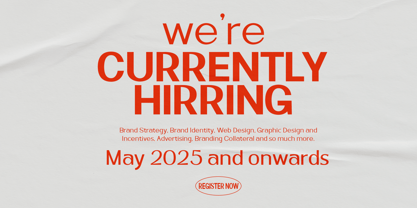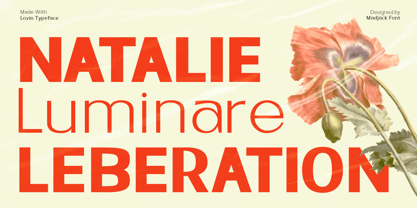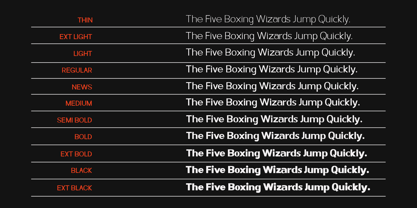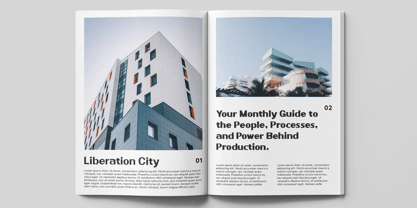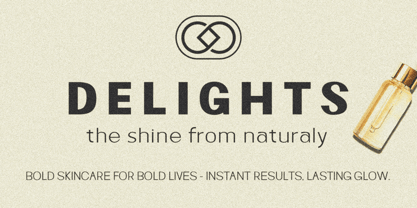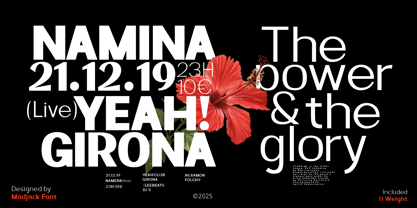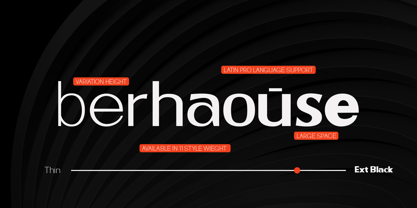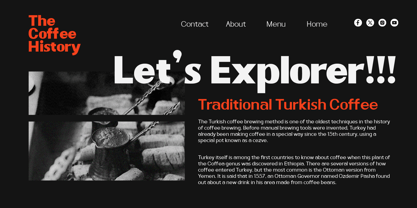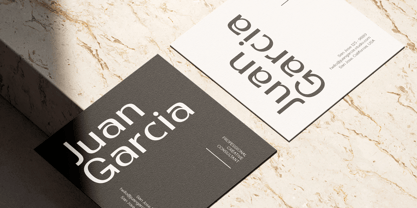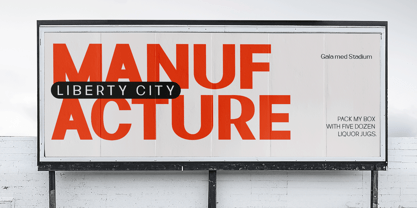
Lovin
The Lovin Font Family was designed by Zaki Muhammad and published by madjack.font. Lovin contains 11 styles and family package options. More about this family
Lovin is a modern sans serif with a geometric touch. Available in 11 font styles, Thin & Xtra Black Weights, so you can use it however you want. Designed with advanced opentype features in mind. Perfect for graphic design and any display use. Can be easily used for web design, signage, corporate, and editorial.
Lovin Sans Serif is suitable for logos, brands, packaging, posters, editorial, and many other designs. Find out more ways to use this font by previewing the font.